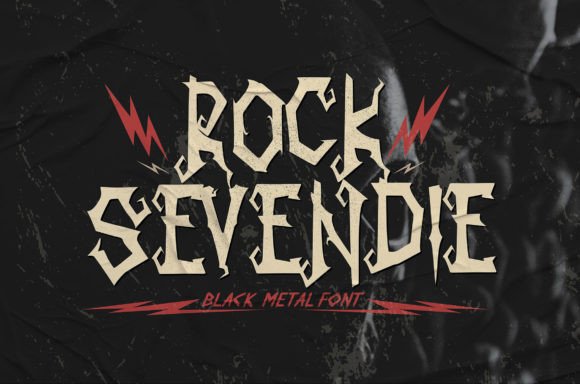
Unleash the Power of Rock Sevendie: A Flawless Symphony of Darkness and Edge
In the vast realm of digital typography, where creativity and self-expression reign supreme, a font emerges from the shadows, captivating hearts with its bold and original character—Rock Sevendie. This exceptional blackletter font, crafted by the visionary Cikareotype, is a testament to the transformative power of visual communication.
Immerse yourself in the captivating world of Rock Sevendie, where darkness and edge harmoniously intertwine. Its bold strokes, meticulously crafted with precision, command attention, while its unique blackletter style exudes a timeless charm. Experience the thrill of creating designs that ooze personality and attitude, leaving an indelible mark on your audience.
With Rock Sevendie, your imagination knows no bounds. Unleash your creativity and let your designs speak volumes. Whether you're conjuring up metal or rock band album covers that ignite the senses, crafting posters that demand attention, or designing apparel that radiates individuality, Rock Sevendie is your ultimate companion.
But Rock Sevendie's allure extends far beyond mere aesthetics. This font is a storyteller, a potent force capable of evoking emotions and capturing the essence of your brand. Its bold and distinctive presence commands attention, captivating your audience and leaving them spellbound.
So, why settle for ordinary when you can embrace the extraordinary? Embark on a journey with Rock Sevendie, a font that ignites your imagination and transforms your designs into breathtaking works of art. Let your creations resonate with power, originality, and an undeniable touch of mystery.
Elevate your designs to new heights with Rock Sevendie. Its bold and original look is the perfect choice for those seeking to make a statement. Whether you're a seasoned designer or just starting out, this font will empower you to create truly remarkable designs.
So, dive into the world of Rock Sevendie and unleash your creativity. Let your imagination soar and experience the transformative power of this exceptional font. The time is now. Embrace the darkness, embrace the edge, and let Rock Sevendie lead you to typographic greatness.